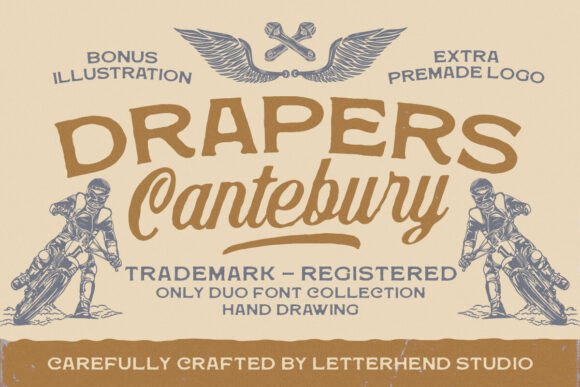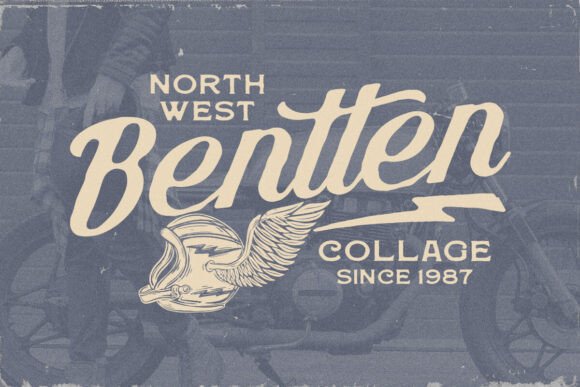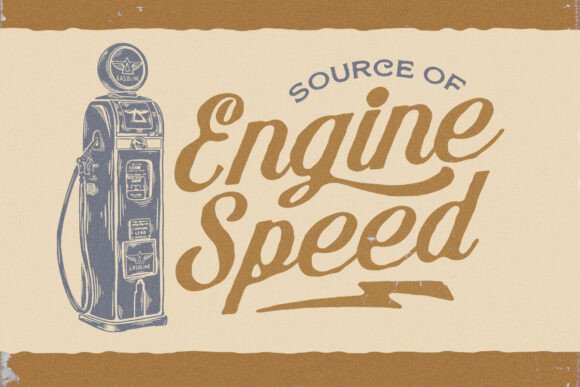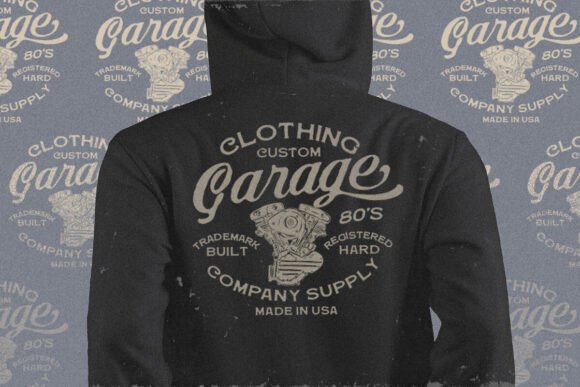
Drapers Canterbury Font
About the Drapers Canterbury Font
Discover the charm of Drapers Canterbury Font. This font is a perfect blend of modern aesthetics and classic appeal. Drapers Canterbury is a bold and vintage-inspired duo font collection, carefully crafted to bring a rugged yet elegant touch to your designs. Featuring a mix of strong serif and classic script, this hand-drawn typeface is perfect for branding, logos, apparel, posters, packaging, and more.
Drapers Canterbury excels in headline treatments, short-form text, and logo design where its bold vintage style makes a strong statement. It’s ideal for projects evoking a sense of heritage, craftsmanship, or a classic, slightly rebellious aesthetic. Avoid using it for large blocks of body text or UI elements; its strong character and relatively low x-height would hinder readability.
Pairing Drapers Canterbury with a clean sans-serif like Open Sans or Lato for body copy provides excellent contrast and readability. For a more luxurious feel, consider pairing the serif with a delicate script font such as Great Vibes, while a geometric sans-serif like Montserrat can create a modern, balanced feel.
The font’s overall personality is best described as bold, confident, and vintage-inspired, with a touch of rugged elegance. It’s perfect for brands targeting a sophisticated but approachable audience interested in quality and tradition.
Drapers Canterbury Font Usage Examples
Drapers Canterbury Font Example